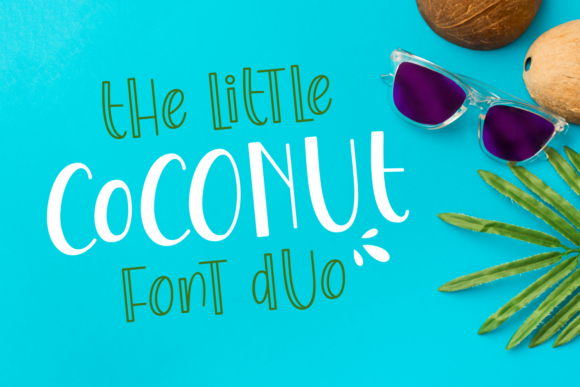
Dive into the enchanting world of The Little Coconut Font, a tropical paradise crafted with love by Dani (7NTypes). This captivating display font exudes a whimsical charm that will transform your creative visions into captivating realities.
Step into a realm where coconuts sway gently under azure skies, and typography dances with the rhythm of the waves. The Little Coconut Font is a symphony of playful curves and vibrant characters, a visual delight that will transport your designs to a tropical oasis.
With its bold and eye-catching presence, The Little Coconut Font demands attention, making it the perfect choice for headlines, logos, posters, and any project that calls for a touch of the extraordinary. Unleash your creativity and let your words take flight, adorned with the vibrant hues of this tropical wonder.
Express your individuality and embrace the spirit of adventure with The Little Coconut Font. Its unique design adds a splash of personality to your projects, whether you're crafting social media posts, creating eye-catching branding materials, or designing enchanting invitations.
Each letter is meticulously crafted to convey a sense of joy and playfulness, reflecting the vibrant essence of the tropics. The Little Coconut Font is more than just a font; it's a gateway to a world of imagination, where your creativity flourishes amidst swaying palm trees and sparkling turquoise waters.
Let The Little Coconut Font inspire you to create designs that resonate with your audience, leaving a lasting impression that evokes the allure of a tropical paradise. Embrace the magic of this enchanting font and let your creativity run wild, transforming your projects into captivating visual masterpieces.
Immerse yourself in the world of The Little Coconut Font, where typography meets paradise, and let your imagination soar to new heights. Transform your designs into stunning expressions of creativity, leaving your audience spellbound by the charm of this tropical wonder.